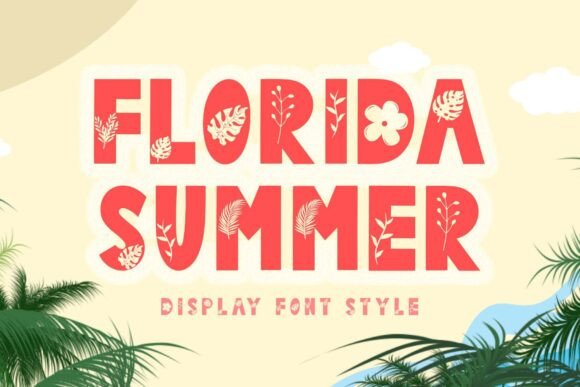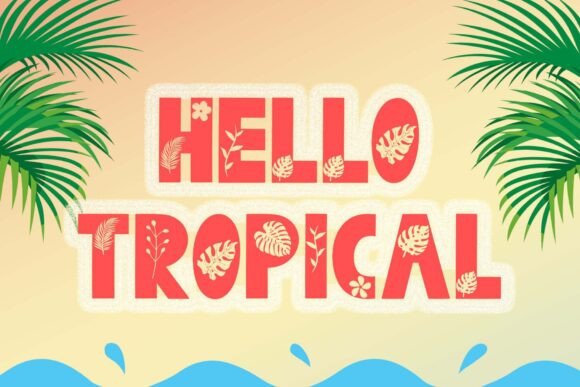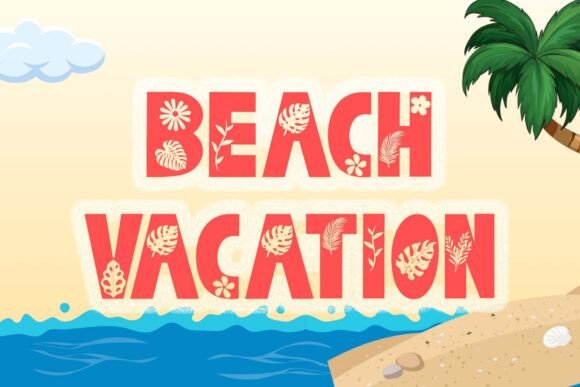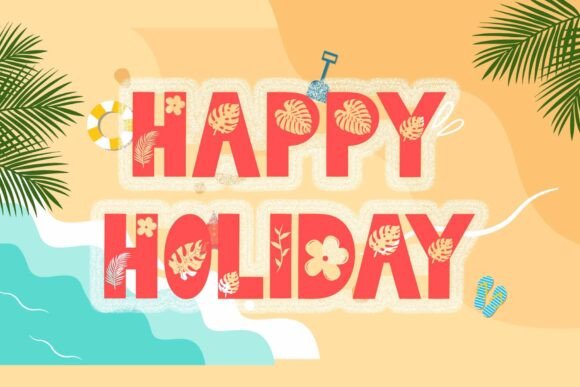
Florida Summer Font
About the Florida Summer Font
The Florida Summer Font is here to transform your projects with its distinctive character and style. “Florida Summer” is a unique and playful display font. This font is equipped with uppercase, lowercase, numerals, punctuations and multilingual support. It is very suitable for use in summer, camping, holiday, vacation, spring, banner, poster, print, branding, logo, sticker and others.
Its playful, slightly retro style makes it ideal for headlines, posters, branding projects needing a touch of summery fun, and packaging for products targeting a younger demographic. Avoid using “Florida Summer” for body text or long-form content; its decorative nature reduces readability in smaller sizes.
Consider pairing it with a clean sans-serif like Open Sans for a balanced contrast, or a more geometric sans-serif such as Montserrat for a modern feel. For a vintage vibe, a serif like Playfair Display could work well. A script font would likely clash, but a simple, neutral sans-serif ensures the “Florida Summer” font remains the focal point.
The overall personality is best described as cheerful and nostalgic, evoking a sense of carefree optimism. Brands aiming for a friendly, approachable image will find it particularly effective.
Florida Summer Font Usage Examples
Florida Summer Font Example